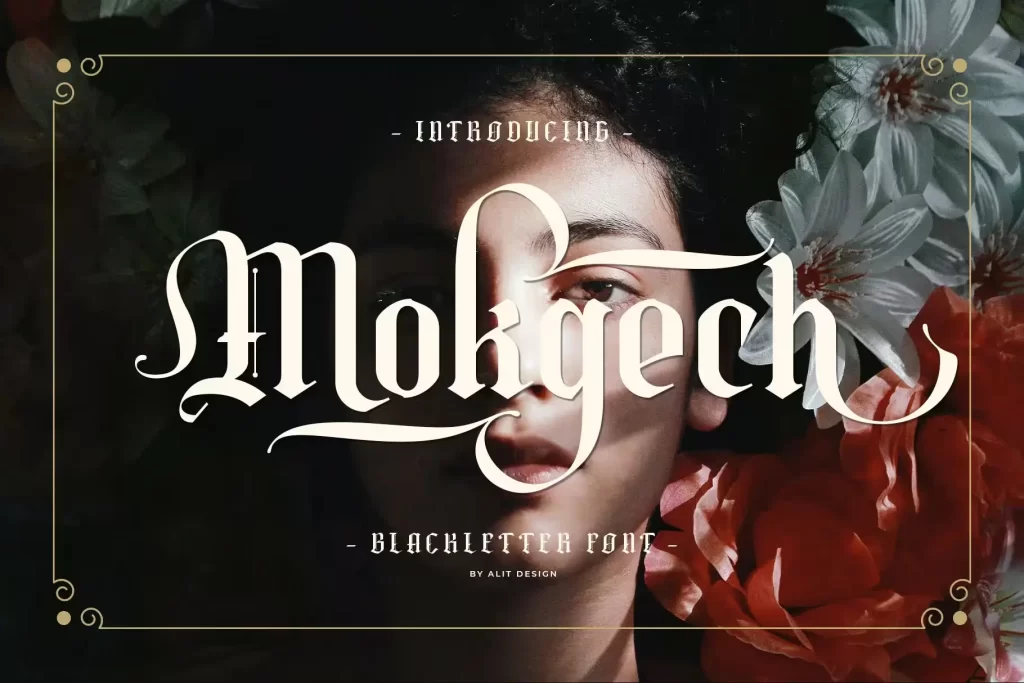
Step back in time and bring a touch of timeless elegance to your designs with “Mokgech ”. Perfect for logos, invitations, tattoos, or historical-themed projects, this classic typeface adds a royal and gothic touch that is great for attention. Download this Blackletter typeface now for free.